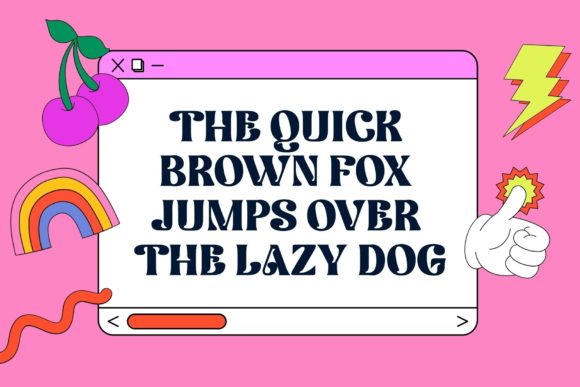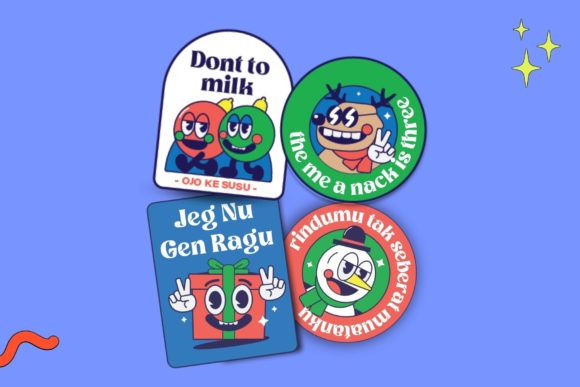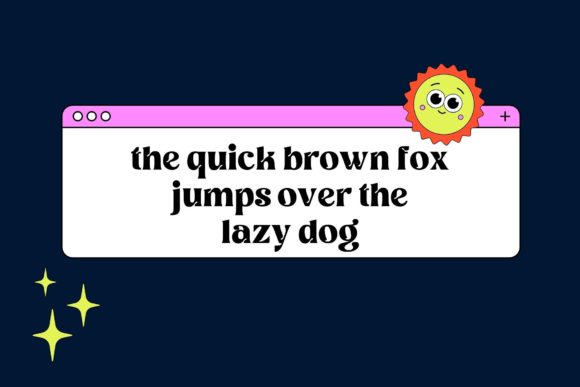
Introduction to Retro Boldy Font
Retro Boldy is a cool and vintage styled serif font, inspired by the 90’s Era.
It is perfect for product packaging, branding project, magazine covers, social media, wedding, or just used to express words above the background .